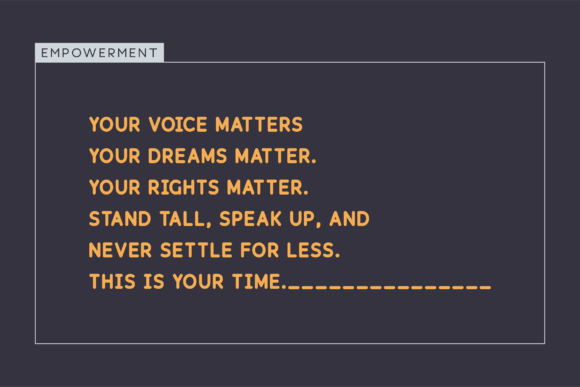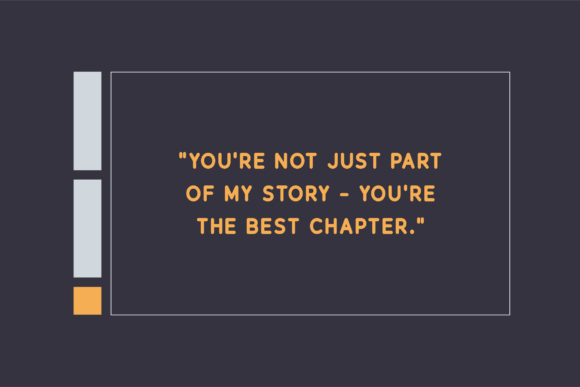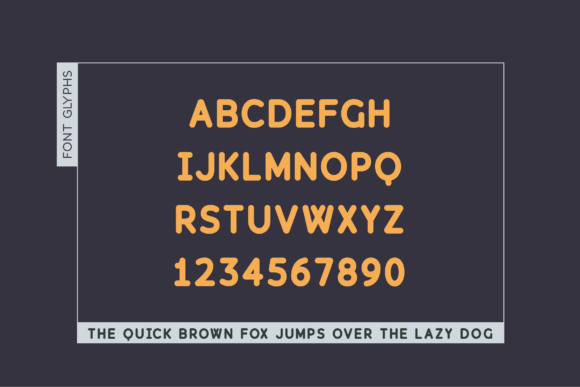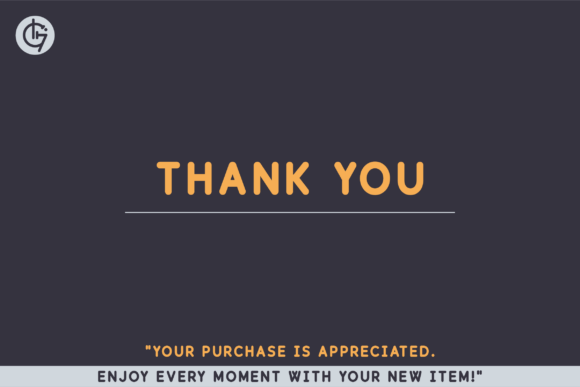
Introduction to Kiropain Font
Experience the unique blend of creativity and simplicity with Kiropain, an all caps font characterized by its quirky appeal.
Featuring uppercase letters from A-Z, digits 0-9, a collection of punctuated and accented characters, this font is designed to inject a dash of fun into your projects Kiropainโ€™s sleek and smooth outlines make it a versatile choice for diverse mediums, making it effortlessly suitable for social media posts, craft endeavours, t-shirt prints, creative decals, charming invitations and a myriad other projects.
Why Choose Kiropain Font?